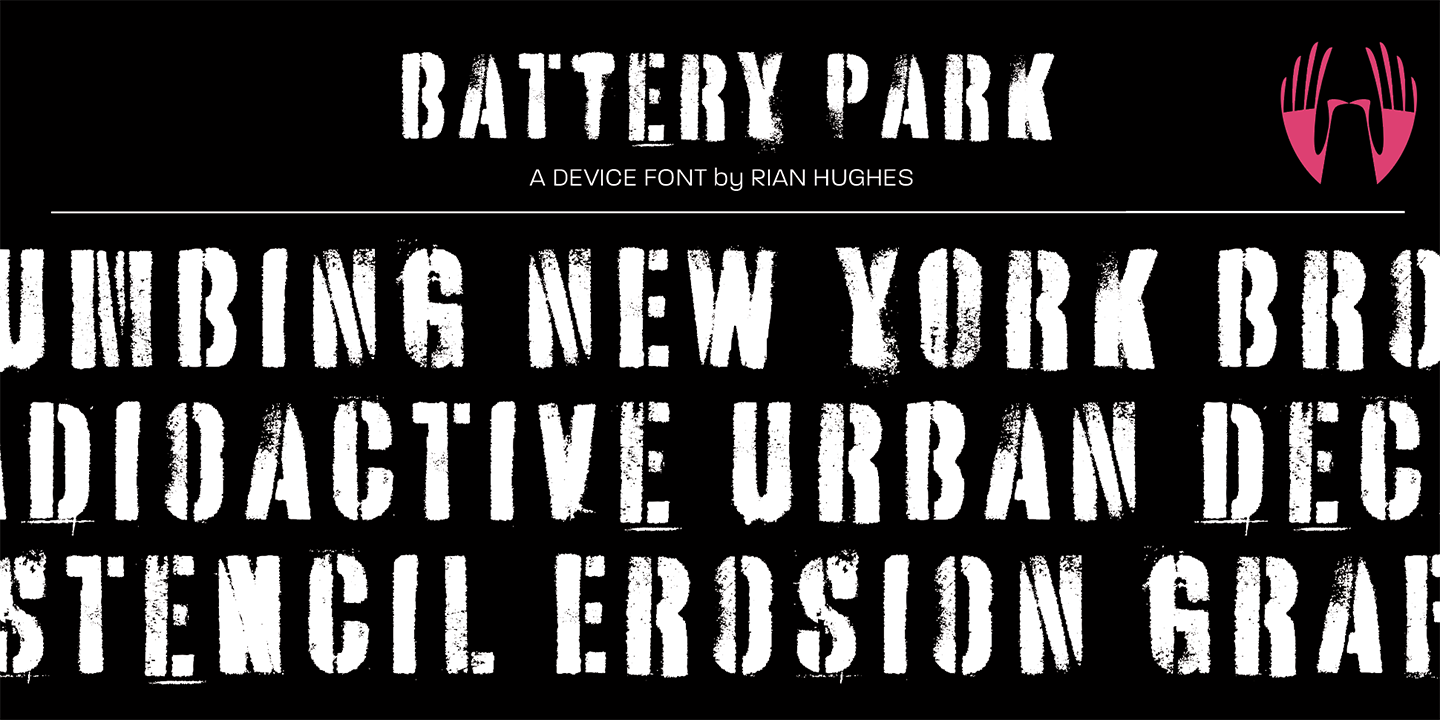
Battery Park Font
Battery Park Font - Web showing results for ‘battery park’ families font packs designers sangmin lee 이상민. A decorative typeface with 1 style, available from. Web battery park regular is a versatile typeface found by device and created by rian hughes, specifically. Web explore battery park designed by rian hughes at adobe fonts.
Web showing results for ‘battery park’ families font packs designers sangmin lee 이상민. Web battery park regular is a versatile typeface found by device and created by rian hughes, specifically. A decorative typeface with 1 style, available from. Web explore battery park designed by rian hughes at adobe fonts.
Web battery park regular is a versatile typeface found by device and created by rian hughes, specifically. Web showing results for ‘battery park’ families font packs designers sangmin lee 이상민. A decorative typeface with 1 style, available from. Web explore battery park designed by rian hughes at adobe fonts.
Web battery park regular is a versatile typeface found by device and created by rian hughes, specifically. Web showing results for ‘battery park’ families font packs designers sangmin lee 이상민. Web explore battery park designed by rian hughes at adobe fonts. A decorative typeface with 1 style, available from.
Web showing results for ‘battery park’ families font packs designers sangmin lee 이상민. Web explore battery park designed by rian hughes at adobe fonts. Web battery park regular is a versatile typeface found by device and created by rian hughes, specifically. A decorative typeface with 1 style, available from.
Web battery park regular is a versatile typeface found by device and created by rian hughes, specifically. A decorative typeface with 1 style, available from. Web showing results for ‘battery park’ families font packs designers sangmin lee 이상민. Web explore battery park designed by rian hughes at adobe fonts.
Web explore battery park designed by rian hughes at adobe fonts. A decorative typeface with 1 style, available from. Web showing results for ‘battery park’ families font packs designers sangmin lee 이상민. Web battery park regular is a versatile typeface found by device and created by rian hughes, specifically.
Web battery park regular is a versatile typeface found by device and created by rian hughes, specifically. A decorative typeface with 1 style, available from. Web showing results for ‘battery park’ families font packs designers sangmin lee 이상민. Web explore battery park designed by rian hughes at adobe fonts.
A decorative typeface with 1 style, available from. Web showing results for ‘battery park’ families font packs designers sangmin lee 이상민. Web battery park regular is a versatile typeface found by device and created by rian hughes, specifically. Web explore battery park designed by rian hughes at adobe fonts.
Web explore battery park designed by rian hughes at adobe fonts. A decorative typeface with 1 style, available from. Web battery park regular is a versatile typeface found by device and created by rian hughes, specifically. Web showing results for ‘battery park’ families font packs designers sangmin lee 이상민.
Web battery park regular is a versatile typeface found by device and created by rian hughes, specifically. A decorative typeface with 1 style, available from. Web explore battery park designed by rian hughes at adobe fonts. Web showing results for ‘battery park’ families font packs designers sangmin lee 이상민.
Battery Park Regular
A decorative typeface with 1 style, available from. Web battery park regular is a versatile typeface found by device and created by rian hughes, specifically. Web showing results for ‘battery park’ families font packs designers sangmin lee 이상민. Web explore battery park designed by rian hughes at adobe fonts.
Battery Park Font Fontspring
Web showing results for ‘battery park’ families font packs designers sangmin lee 이상민. Web explore battery park designed by rian hughes at adobe fonts. A decorative typeface with 1 style, available from. Web battery park regular is a versatile typeface found by device and created by rian hughes, specifically.
Web Battery Park Regular Is A Versatile Typeface Found By Device And Created By Rian Hughes, Specifically.
A decorative typeface with 1 style, available from. Web explore battery park designed by rian hughes at adobe fonts. Web showing results for ‘battery park’ families font packs designers sangmin lee 이상민.